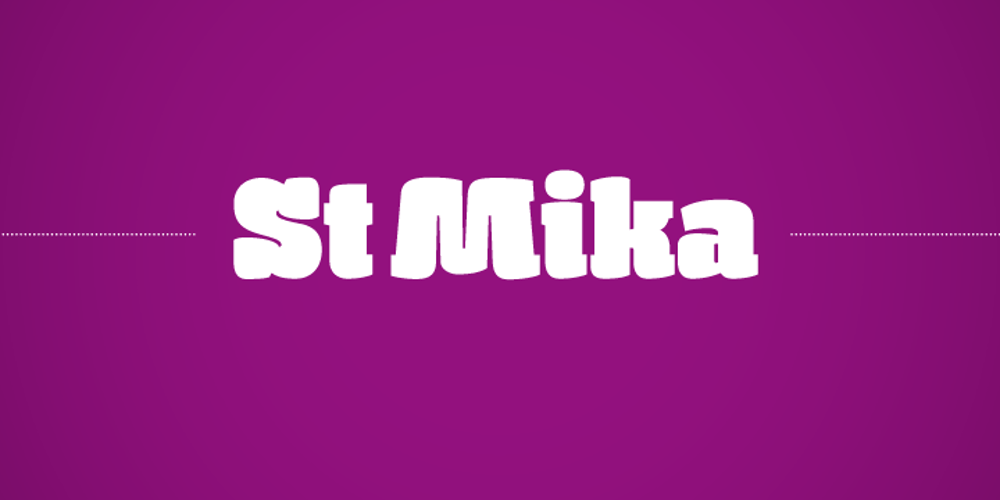
St Mika
St Mika font
St Mika Font Family was designed by Sascha Timplan and published by Stereotypes. St Mika contains 1 styles and family package options. St Mika is big, black and beautiful. A little bit clumsy, Mika has his very own style of serifs and letterforms, making him very unique. If you want to yell or scream at someone, Mika is not your partner. This typeface is more about harmony and big letters.